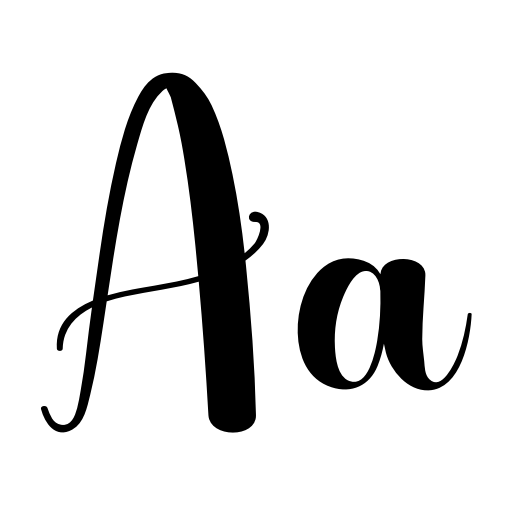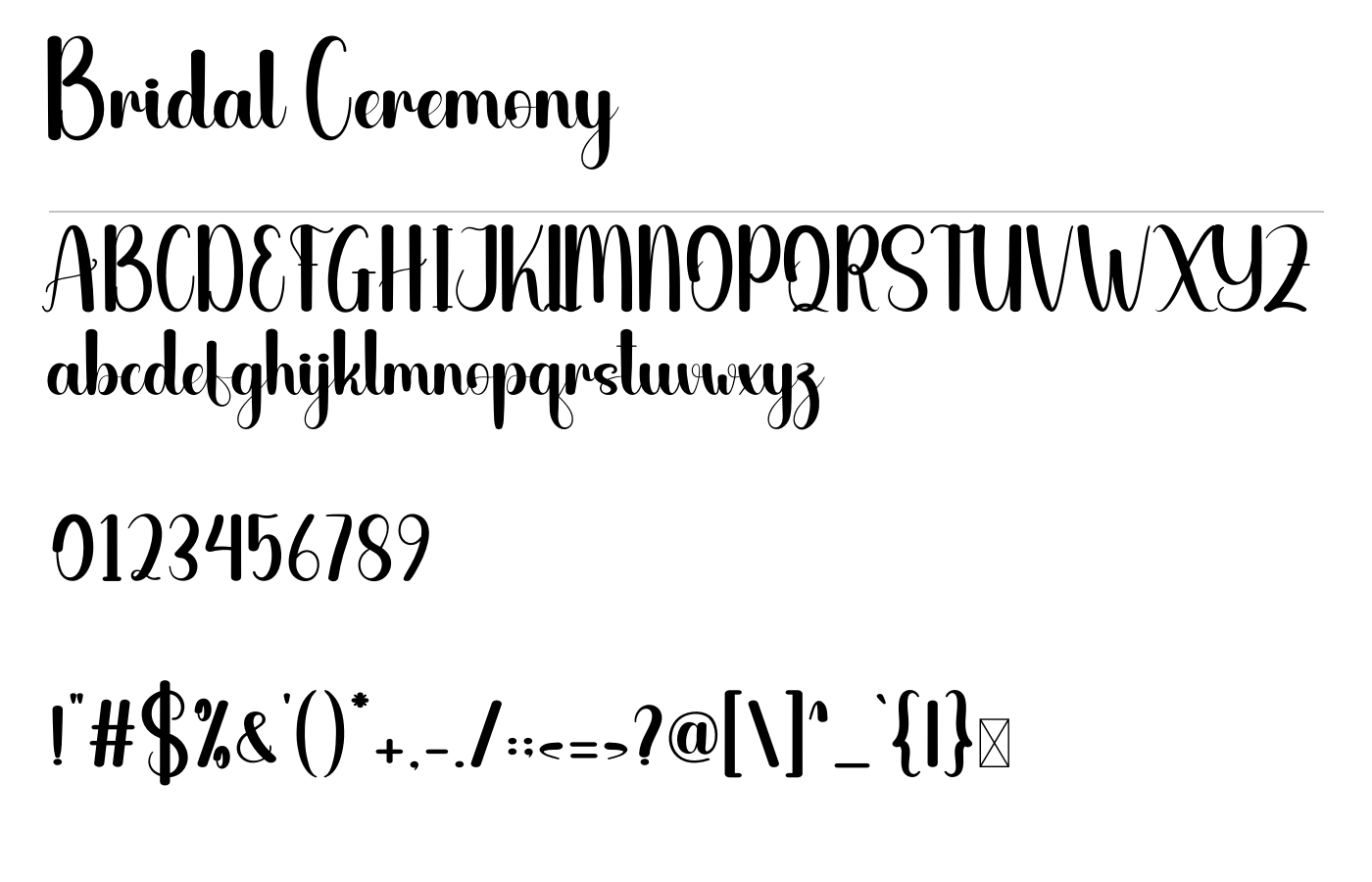
Bridal Ceremony is a charming script font with a playful yet elegant feel, characterized by its smooth, rounded strokes and delicate swashes that add a romantic touch. Its balanced weight and flowing letterforms make it perfect for wedding invitations, greeting cards, and branding that seeks to convey warmth and sophistication. This font shines in decorative headings and design projects where a graceful, friendly style is desired.
Bridal Ceremony Font